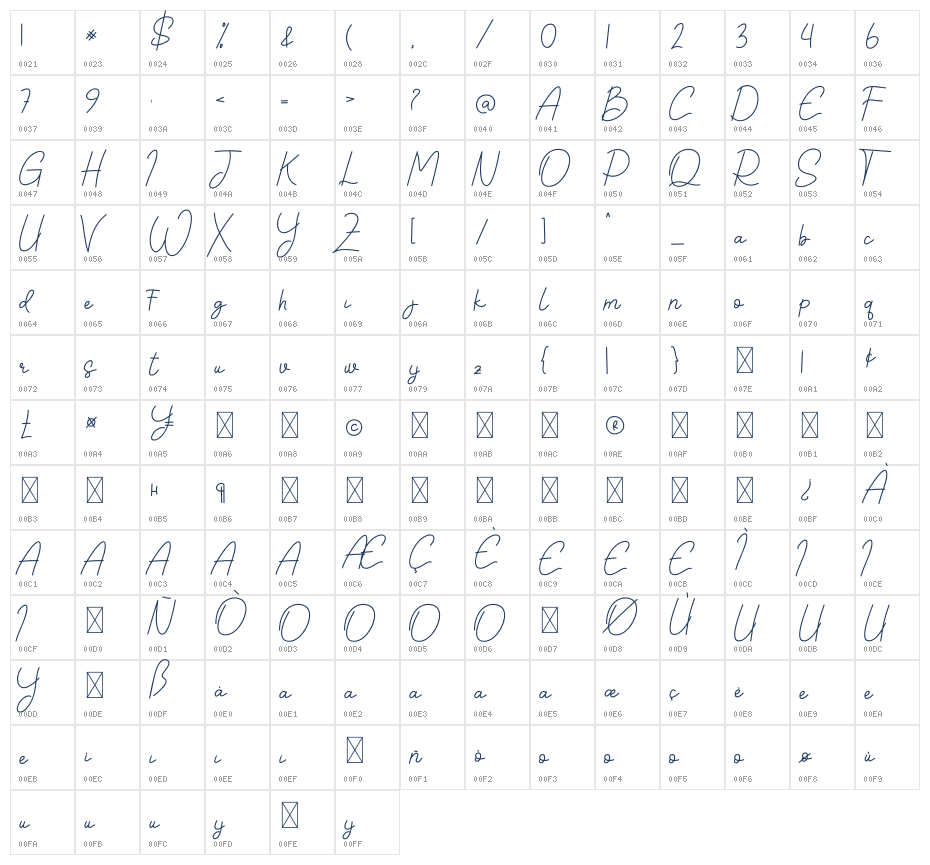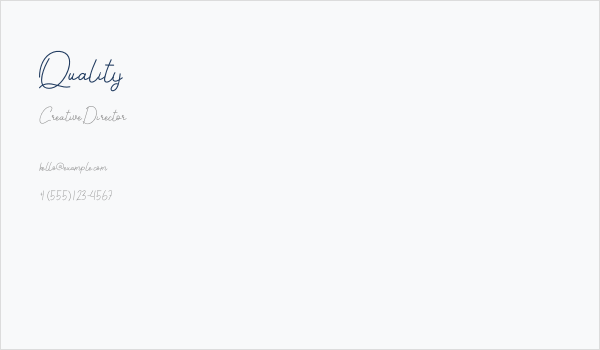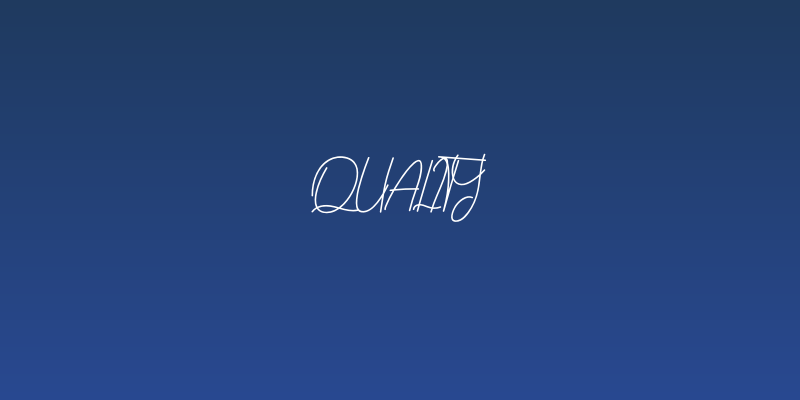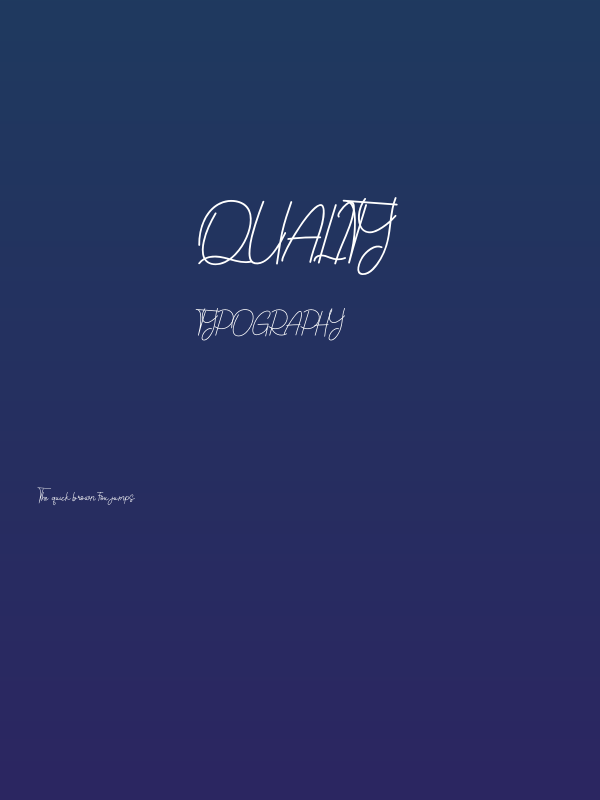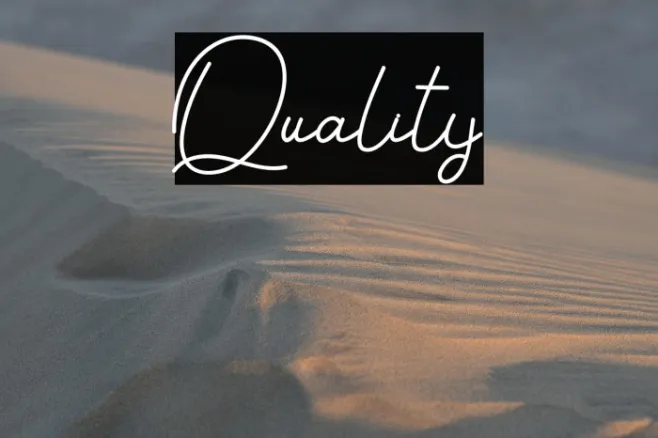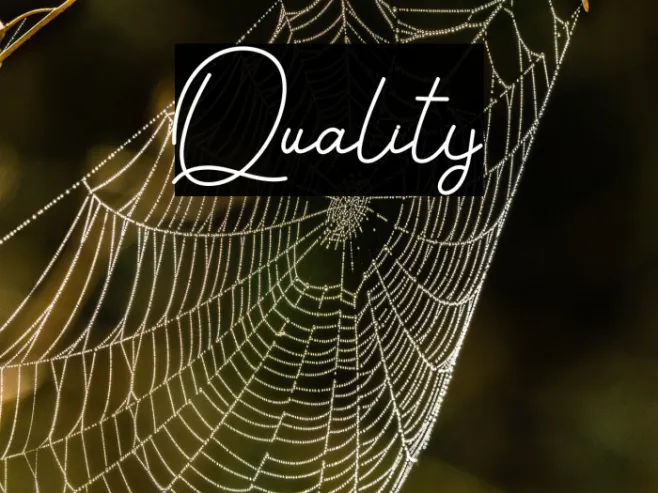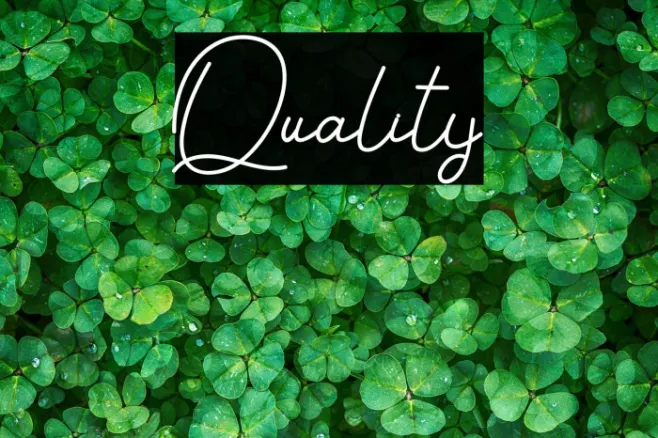
Quality Font
Quality Description
A handwritten, cursive script font with a casual and elegant style, featuring thin, flowing lines and a slightly playful appearance.
| Overall Style | Casual, Elegant, Handwritten |
| Use Case | Invitations, Greeting Cards, Personal Branding, Logos, Decorative Headings |